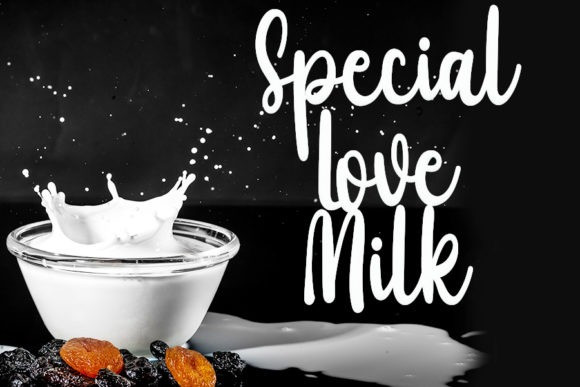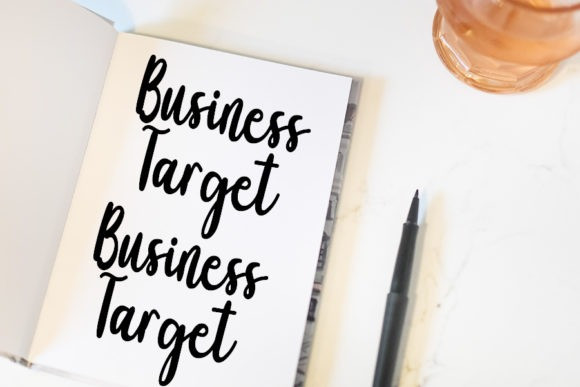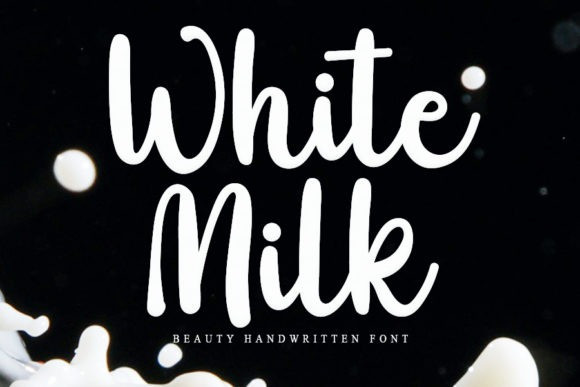
White Milk Font
White Milk Script Font is a lovely script font featuring charming, playful characters that seem to dance along the baseline. Add this font to your most creative ideas, and notice how it makes them stand out!